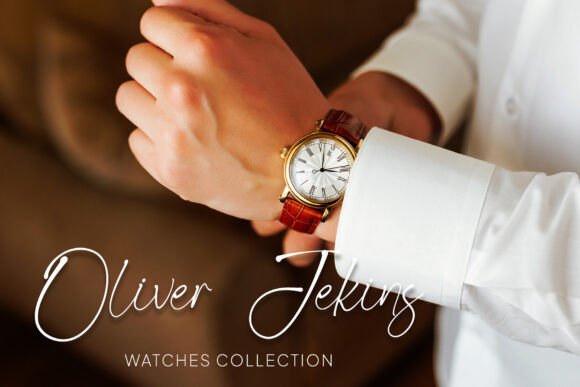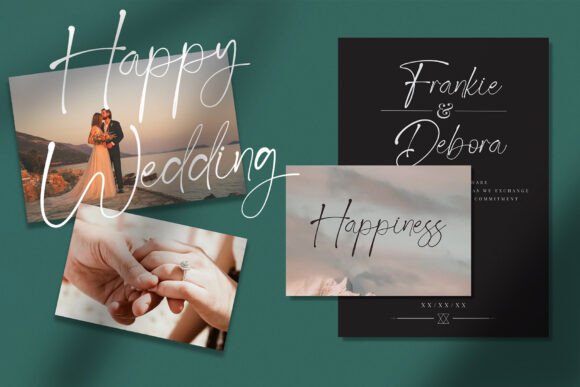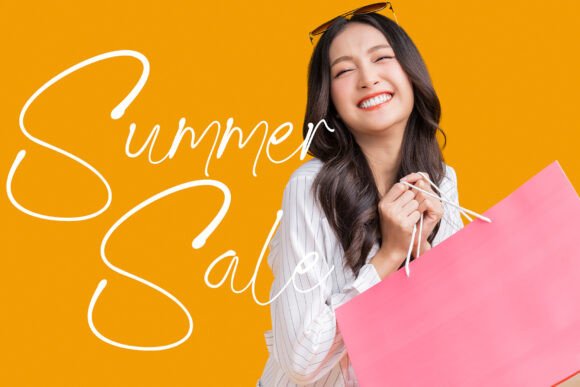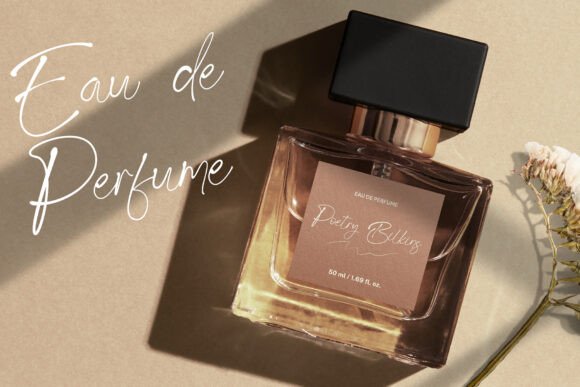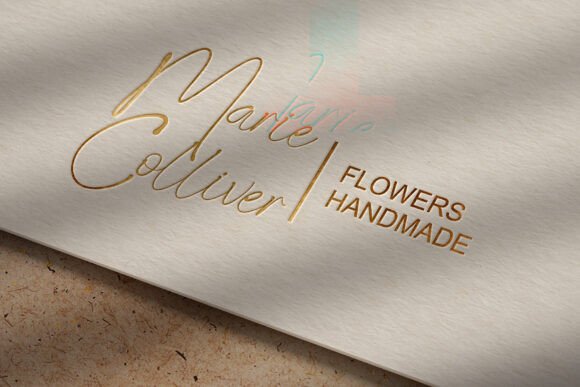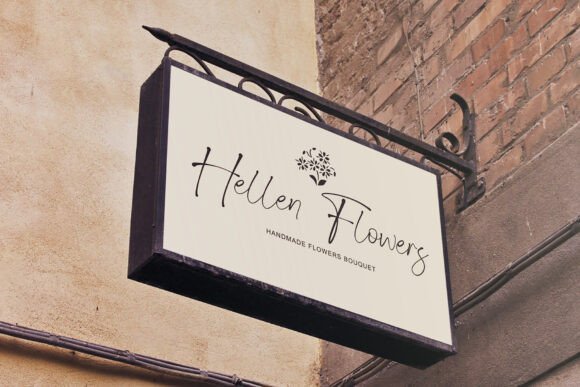
Discover the Perfect Blend of Classic Elegance and Modern Flair
There’s nothing quite like the rush of creativity that comes when you stumble upon the perfect font for your project. You know, that moment when the words just seem to flow effortlessly, and your design comes together in a way that feels truly magical. For designers, finding that elusive font can be a game-changer – and that’s exactly what the Bunga Hati Font aims to be.
This exquisite handwritten font masterfully combines the classic calligraphic influences of the past with the freshness and modernity of the present. With its unique blend of elegance and sophistication, the Bunga Hati Font is sure to elevate your projects to new heights and leave a lasting impression on your audience.
Whether you’re a seasoned designer or just starting out, the Bunga Hati Font is an invaluable addition to any toolkit. Its versatility and style make it the perfect choice for a wide range of applications, from branding and marketing materials to digital media and print publications.
Bunga Hati Font Key Features
- Font Style: Script, handwritten font with a unique, elegant design.
- Size: 1000+ glyphs, including uppercase and lowercase letters, numbers, punctuation, and special characters.
- Resolution: Designed for high-resolution displays (Retina and 4K) and scalable for various font sizes.
- Unique Characteristics: Hand-drawn design, subtle flair and movement, perfect for creative and artistic projects.
Bunga Hati Font Review
I recently had the chance to work with the Bunga Hati font, and I must say, it’s a mixed bag. ✨ One thing that really stands out is the font’s unique aesthetic. It’s a beautiful, handwritten font with a lot of character. It’s perfect for adding a touch of whimsy to your designs.
Another thing I like about Bunga Hati is its versatility. It can be used for a wide range of projects, from invitations to signage to digital graphics. It’s also relatively easy to read, even at smaller font sizes.
- ⚠️ Limited character set: One of the main limitations of Bunga Hati is its limited character set. It’s not suitable for projects that require a lot of special characters or punctuation.
- ⚠️ Not ideal for body text: While Bunga Hati is great for headings and titles, it’s not the best choice for body text. It can be difficult to read in large blocks of text.
Overall, I think the Bunga Hati font is a great addition to any designer’s toolkit. It’s perfect for adding a touch of personality to your designs, and it’s relatively easy to use. However, it’s not a one-size-fits-all solution, and you’ll need to consider its limitations before using it in your projects.
Getting the Most Out of Bunga Hati Font
To get the most out of Bunga Hati Font, consider the following tips:
– Use it for decorative purposes, such as headings or titles.
– Combine it with other fonts for a unique and creative look.
– Adjust the font size and style to suit the design requirements.
Bunga Hati Font is commonly used for:
– Wedding invitations and stationery.
– Event branding and marketing materials.
– Personalized gifts and stationery.